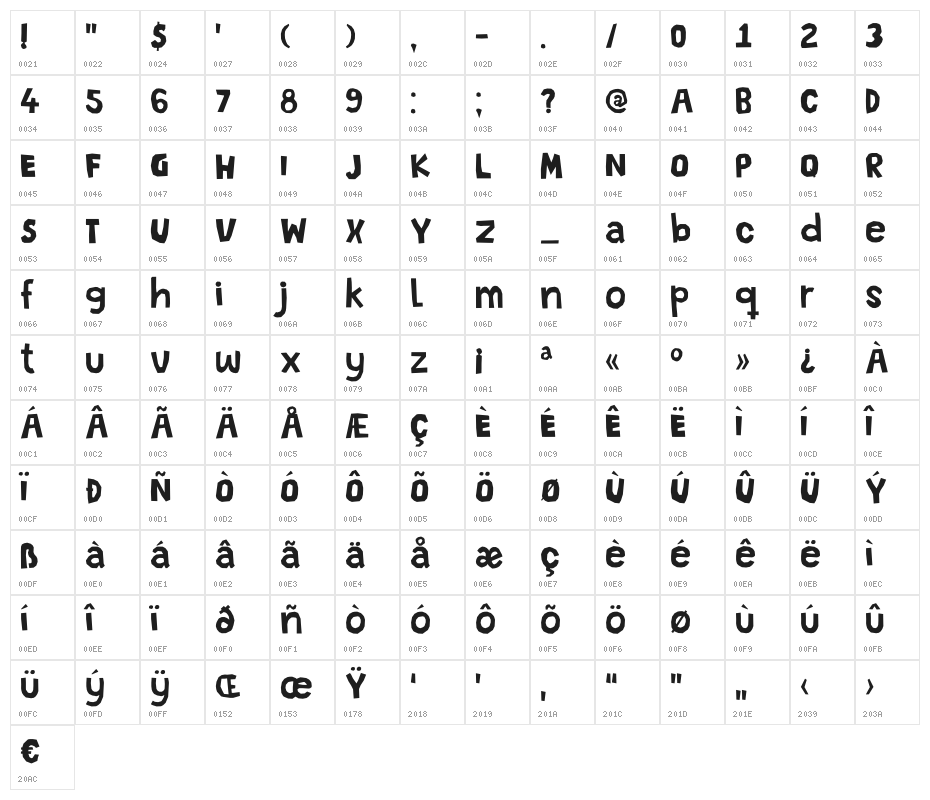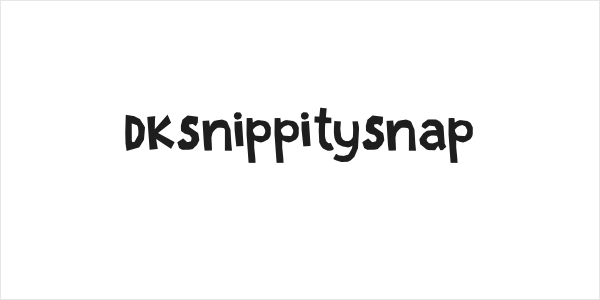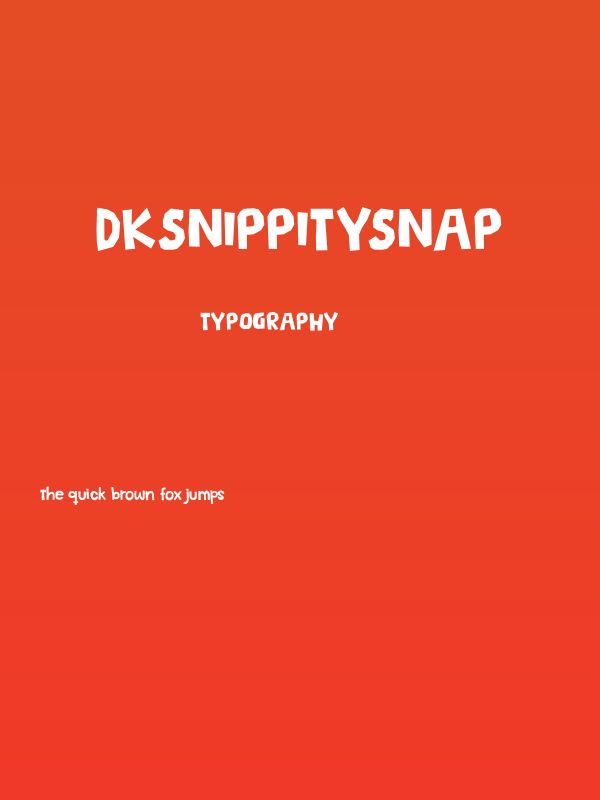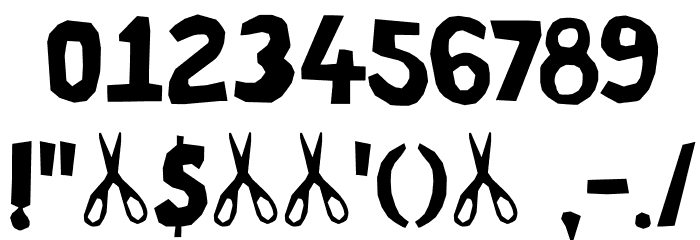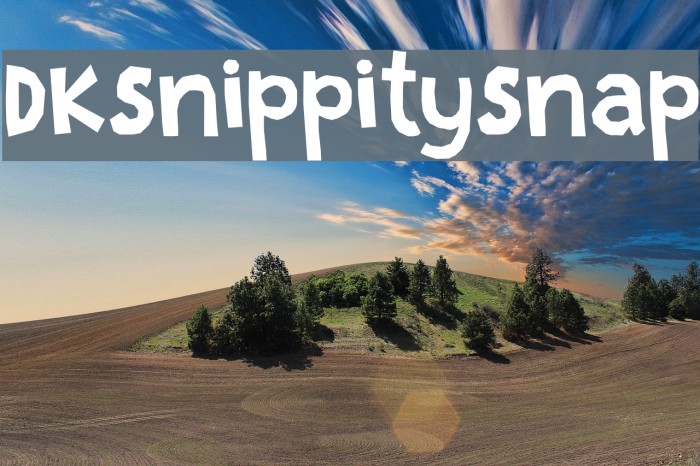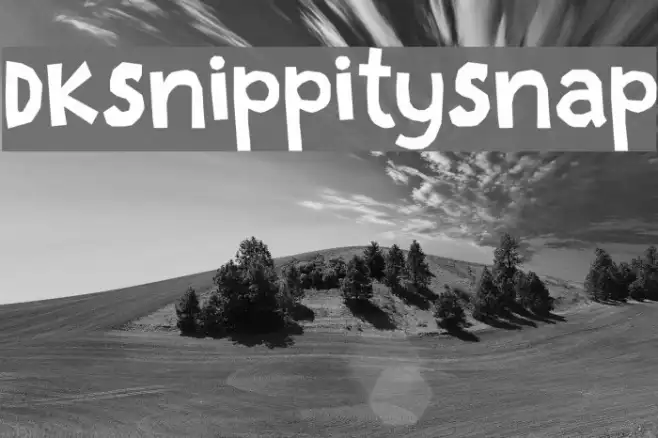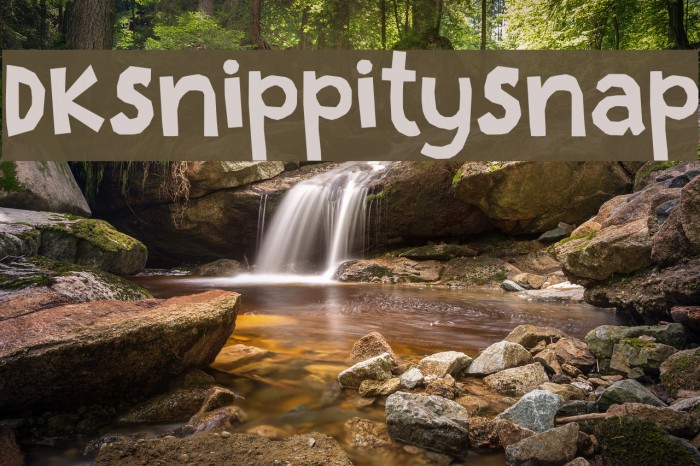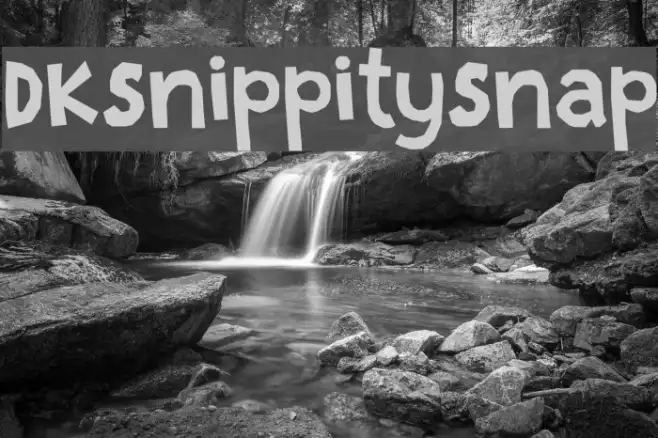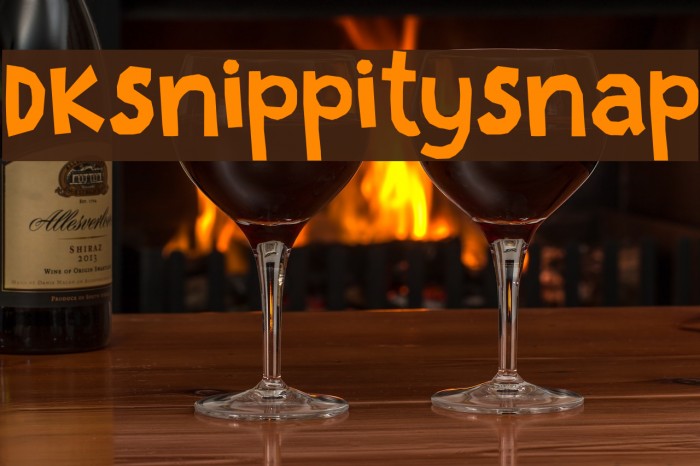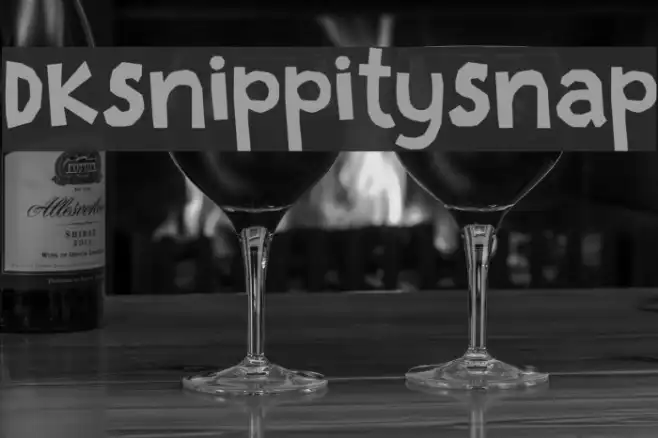
DKSnippitySnap Font
DKSnippitySnap Description
This font features a playful and quirky design, characterized by its irregular and bold letterforms. Each character appears to have been cut out with scissors, giving it a handmade, crafty feel. The uppercase letters are bold and slightly uneven, while the lowercase letters maintain a consistent style with a touch of whimsy. The numbers and special characters follow the same playful aesthetic, making the font suitable for creative and informal projects. The overall appearance is dynamic and eye-catching, perfect for adding a unique touch to any design.
| Overall Style | Playful, Crafty, Quirky |
| Proposed Projects | Ideal for children's books, craft projects, playful branding, and creative posters. |